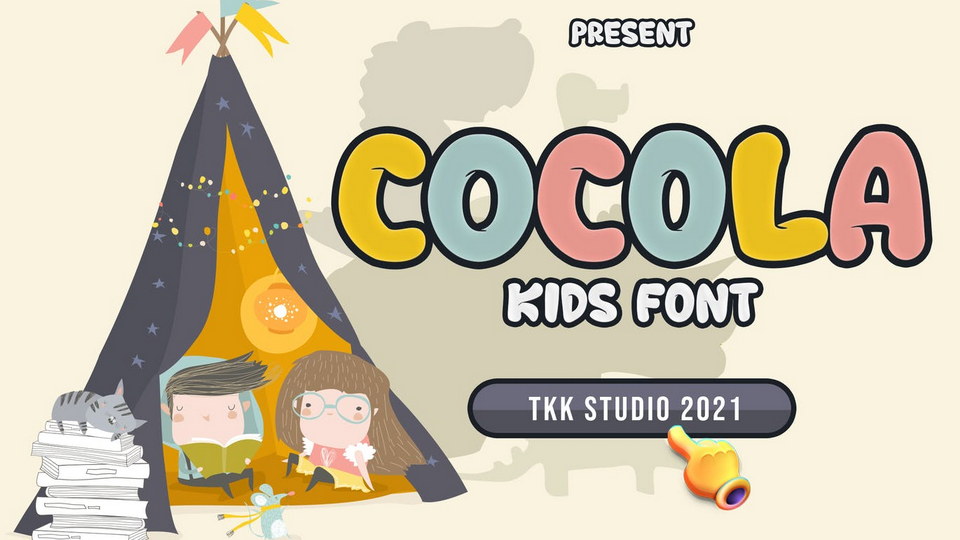
Download Cocola font, an all caps kids typeface. Cocola is also a gaming font, with funny and happy feelings all around it, and it’s a bubble shape font as well…